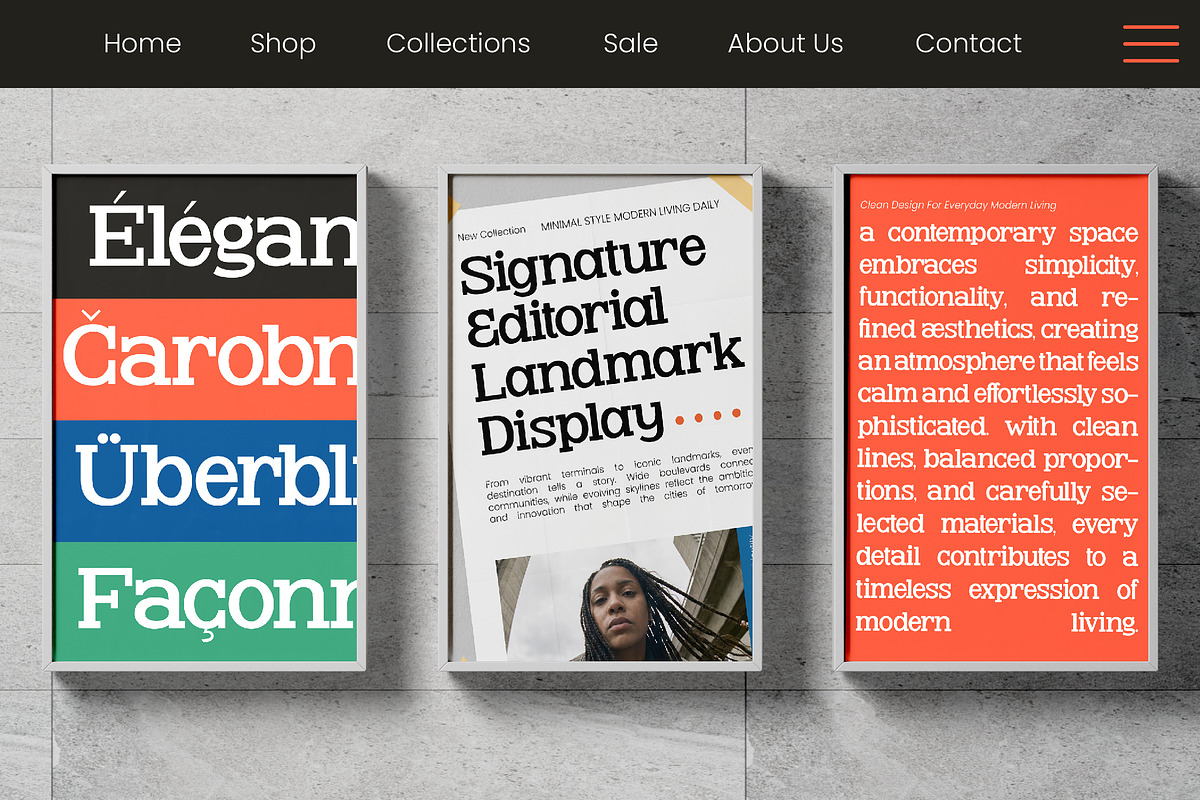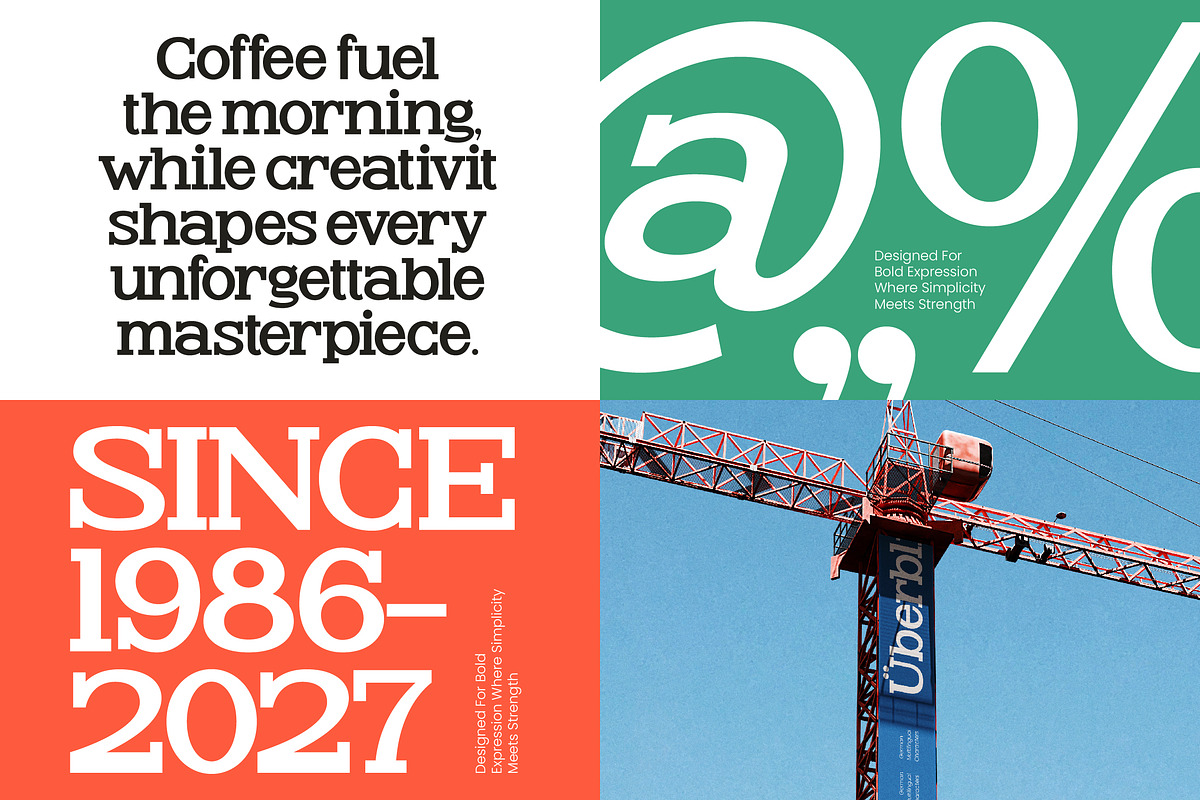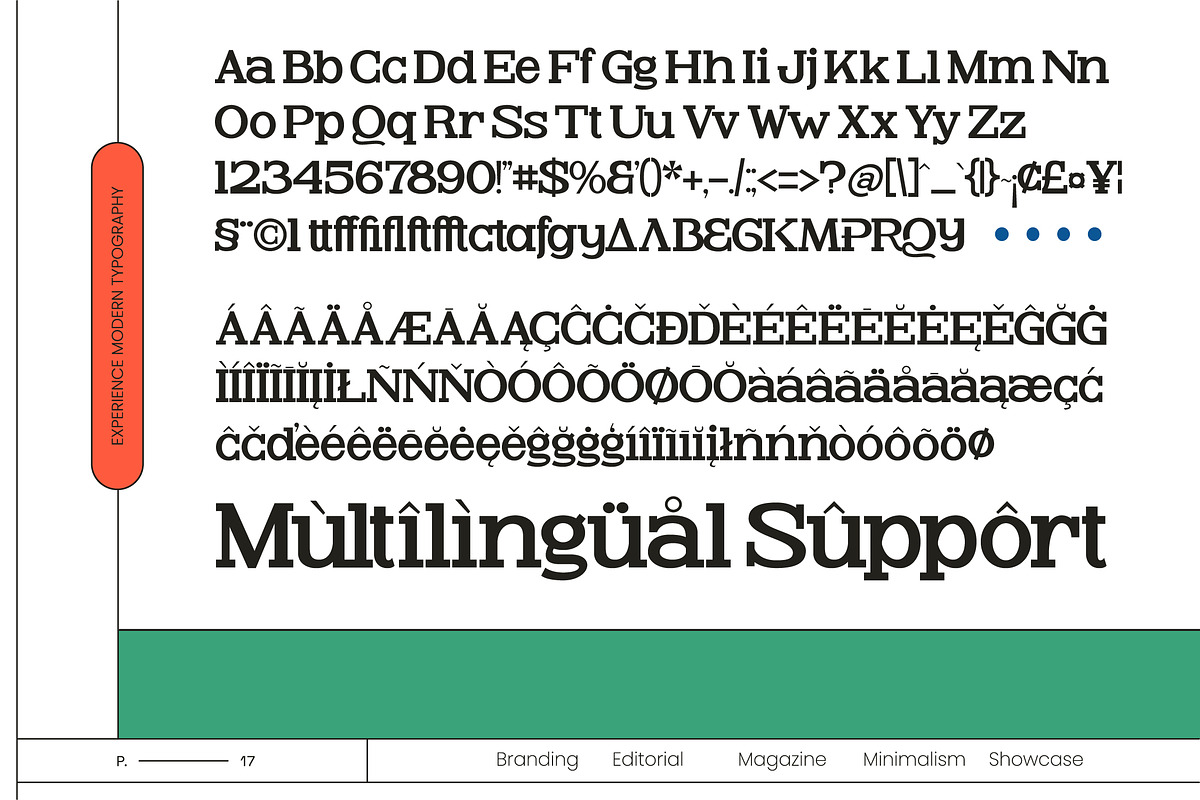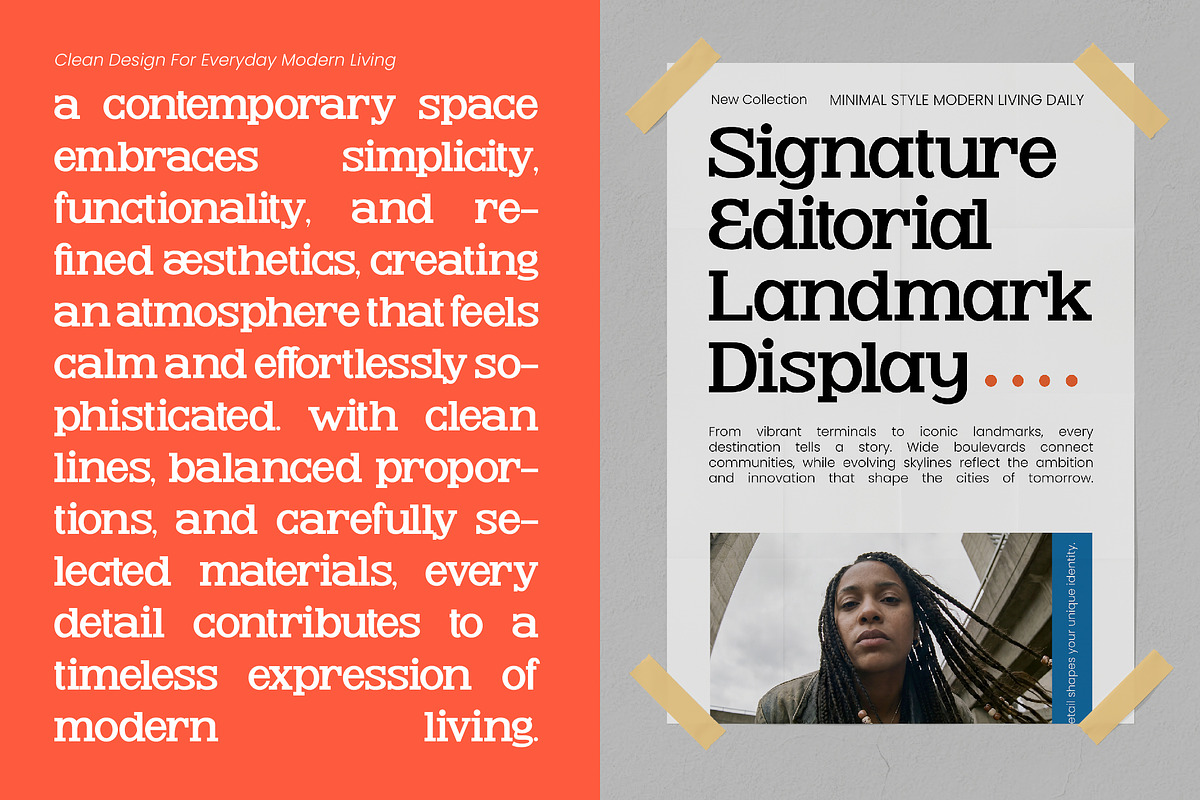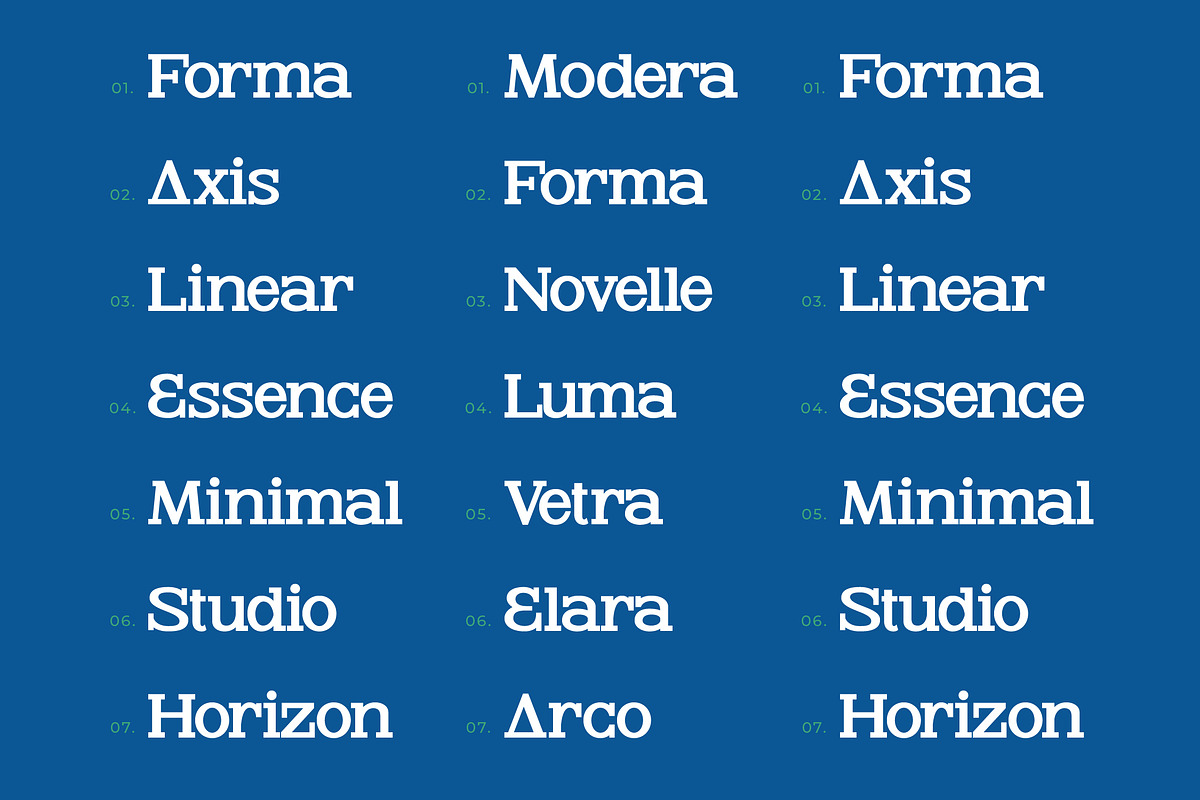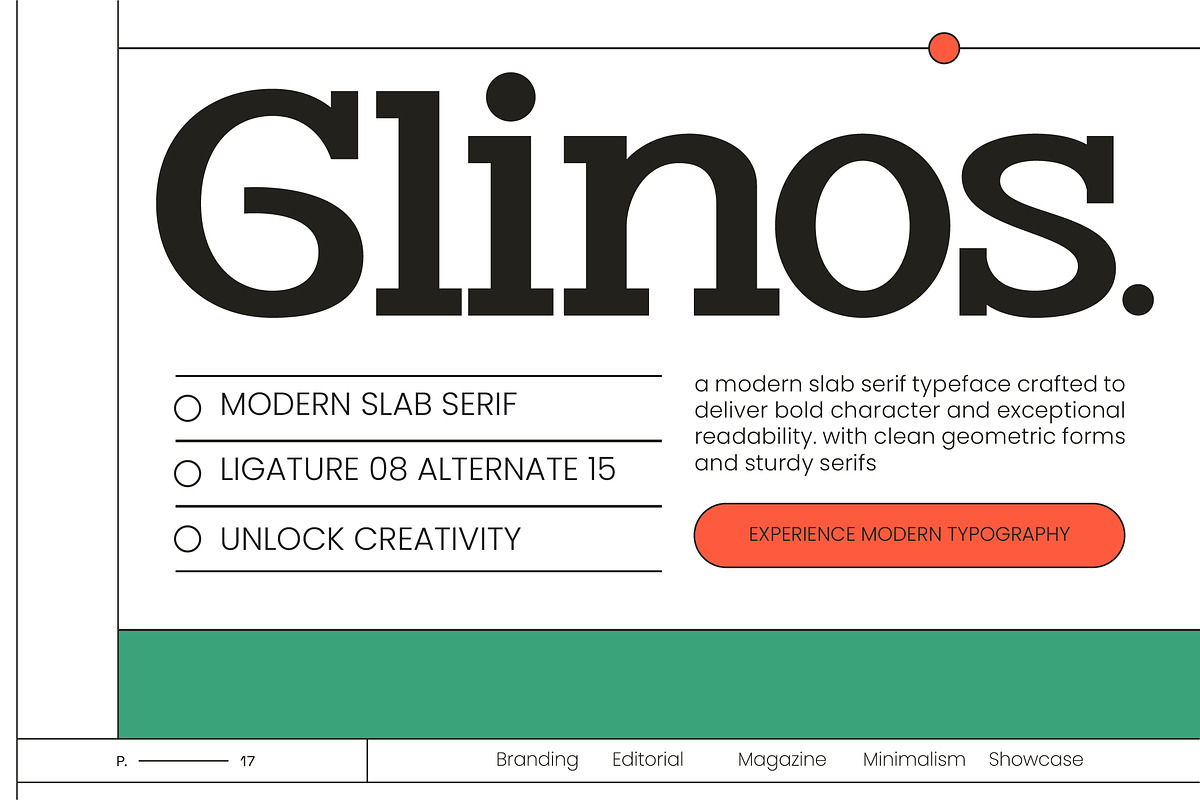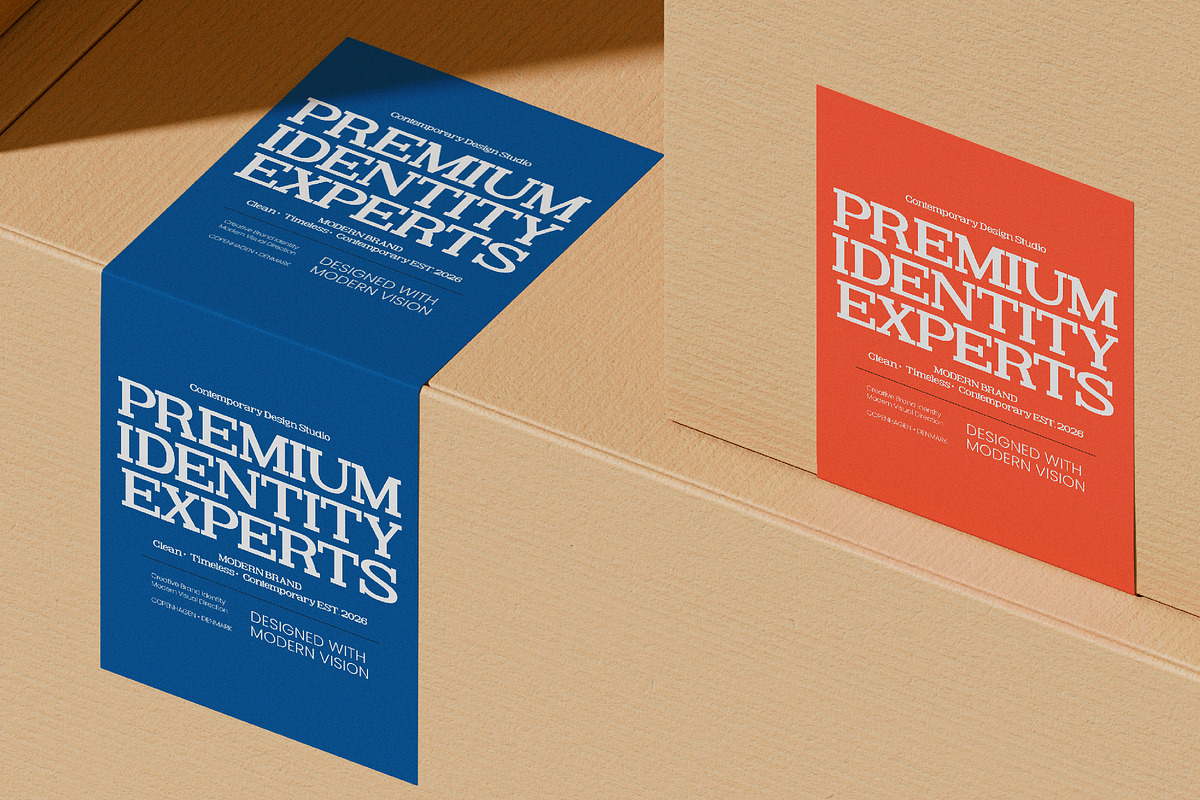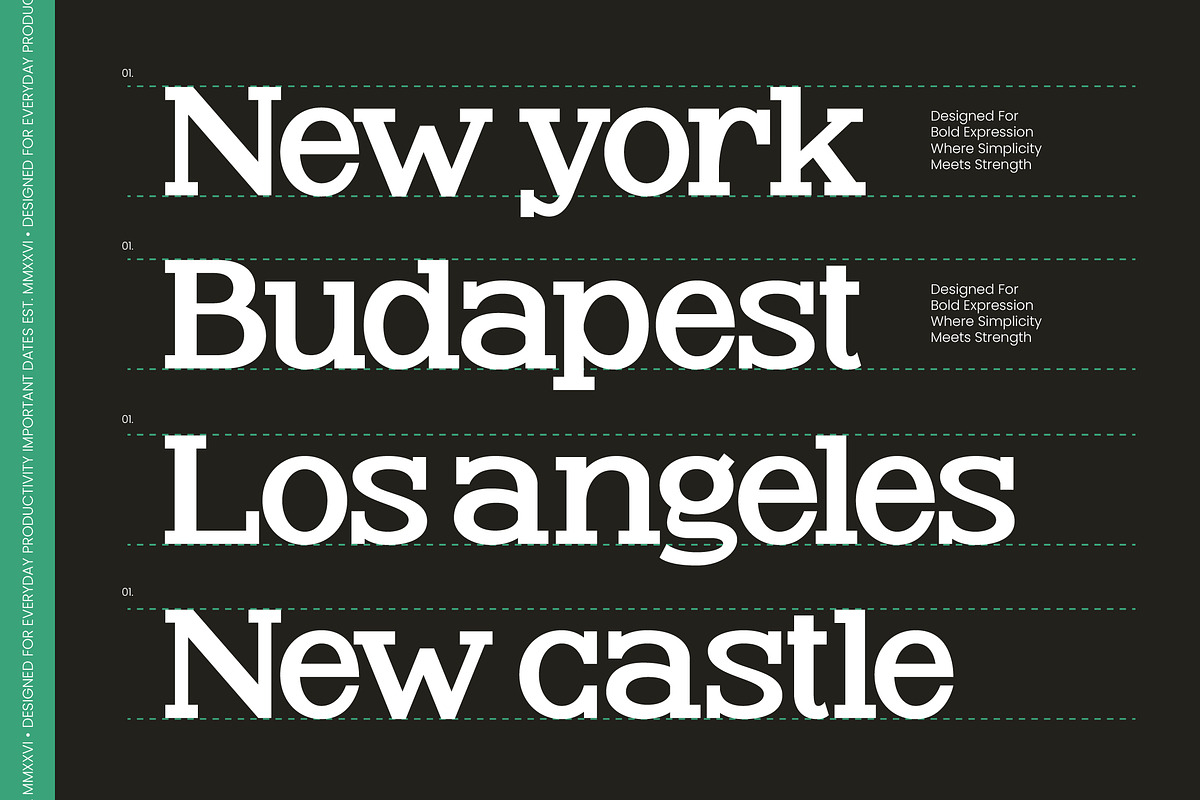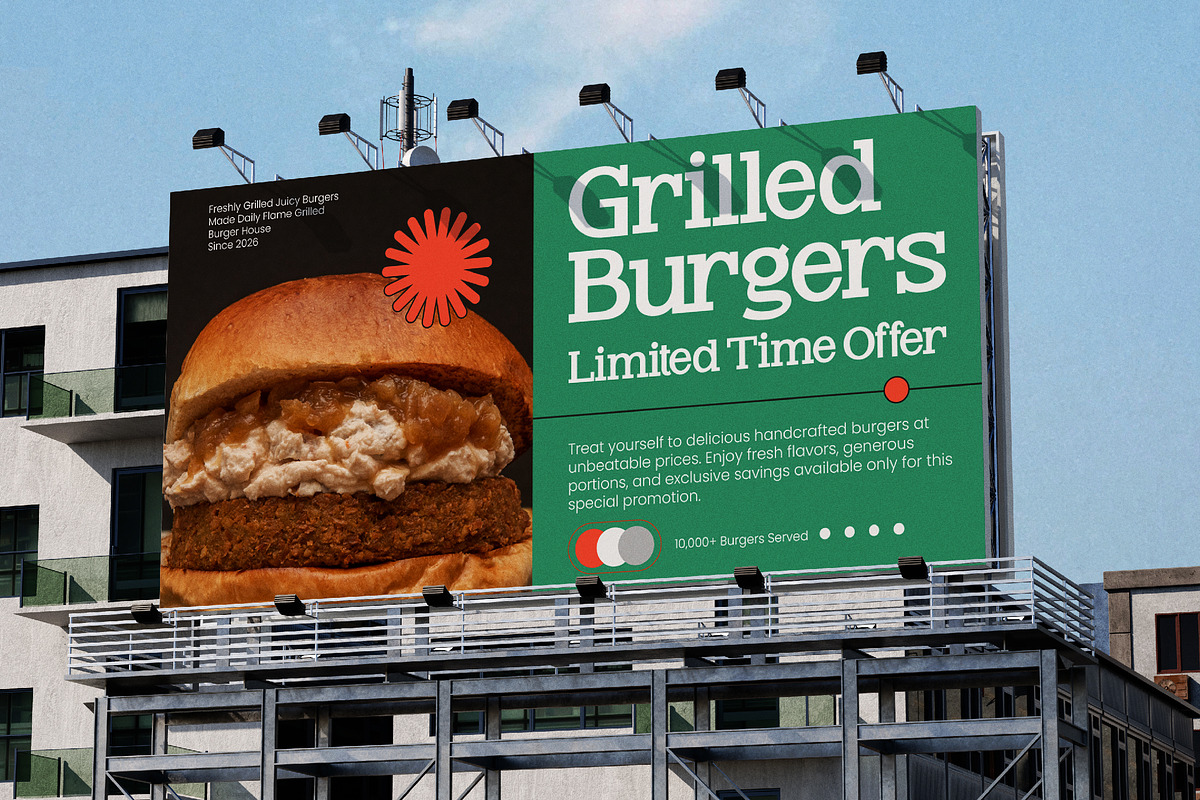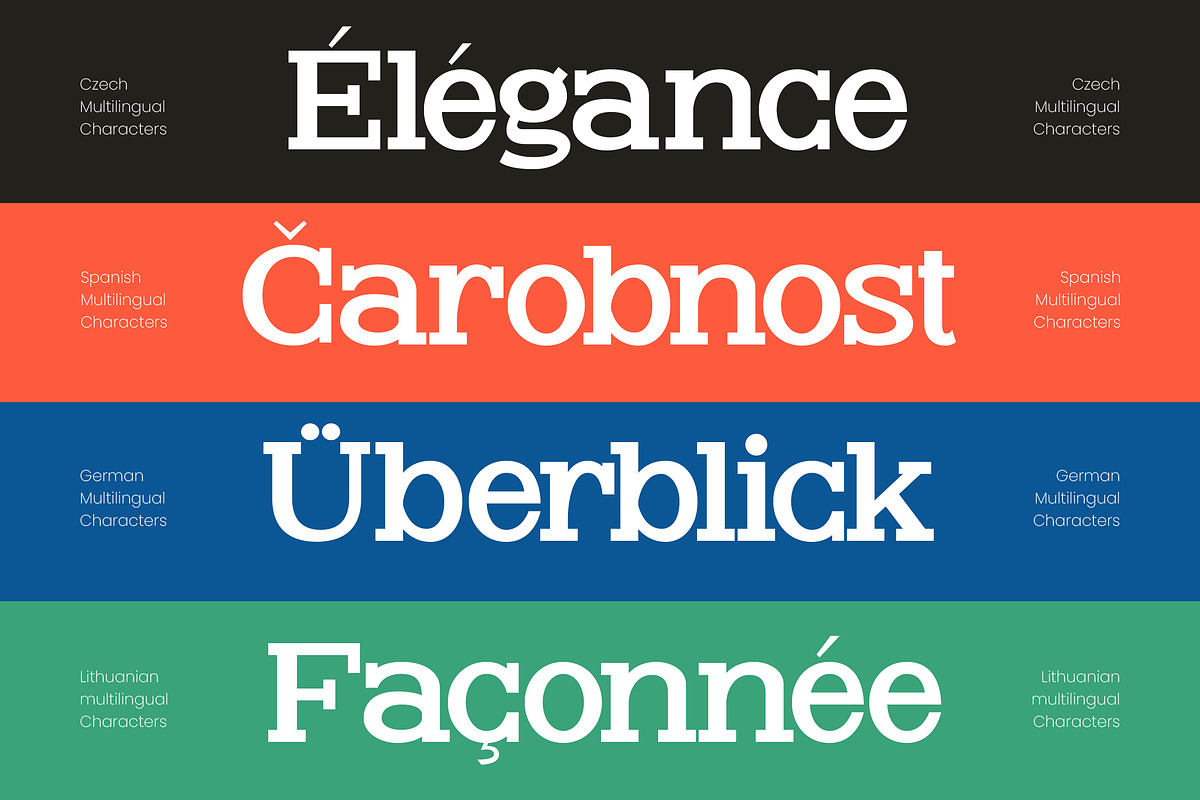
Glinos Modern Slab Serif
Glinos - Modern Slab Serif , Glinos captures the essence of contemporary strength, offering a bold visual narrative that commands attention on every page. This modern slab serif is designed to bridge the gap between architectural precision and creative expression.
Drawing inspiration from the sturdy geometry of urban landscapes and industrial craftsmanship, this typeface evokes a sense of permanence and reliability. It feels like a masterclass in structural elegance, where every curve and corner is meticulously balanced.
With its modern serif display qualities and undeniable luxury typography appeal, this font delivers a powerful branding impact. It is an essential high-contrast serif for designers seeking a sophisticated editorial font that refuses to be ignored.
Perfectly aligned with the current modern serif trend, this typeface meets the demand for character-driven typography in high-end design markets. It stands at the forefront of editorial display fonts, offering a fresh perspective on classic slab structures.
This versatile typeface is the ultimate choice for high-impact logo design, cohesive branding systems, and high-end editorial layouts. It excels in upscale packaging, sophisticated wedding invitations, and avant-garde fashion spreads.
The font package includes a comprehensive set of ligatures and alternates to expand your creative possibilities beyond standard layouts. Full multilingual support and a wide range of international characters ensure global accessibility for every project.